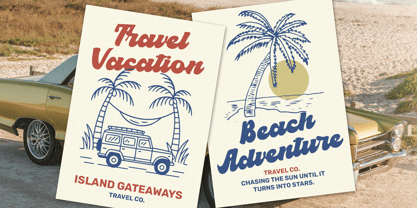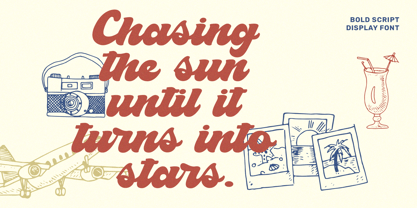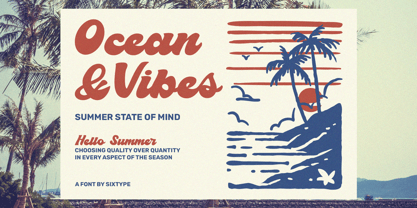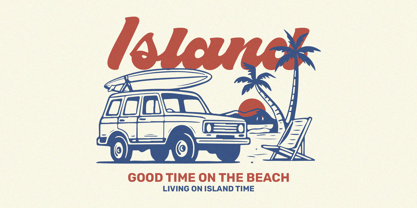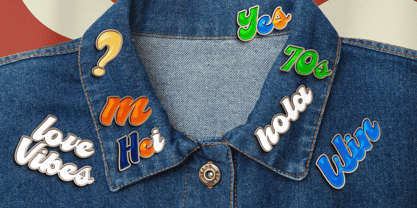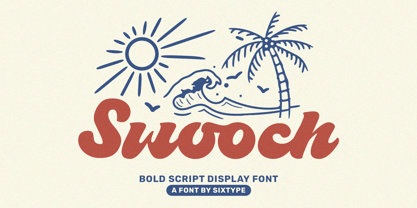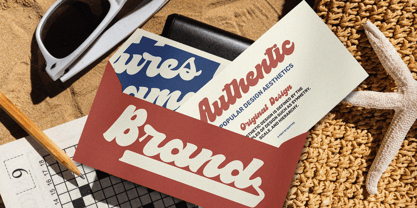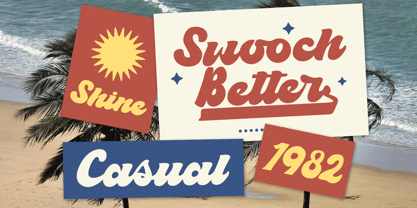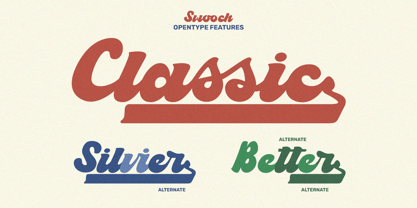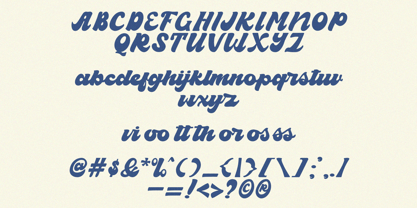
Swooch
by Sixtype Foundry
Swooch is a bold retro script typeface inspired by vintage signage, classic diner lettering, and nostalgic 70s typography. With its thick flowing strokes, smooth curves, and energetic swashes, this font exudes a playful yet confident personality that captures attention. The handcrafted script style adds warmth, rhythm, and vintage charm, making it ideal for a variety of applications including logos, packaging, apparel, café branding, posters, social media graphics, and retro-inspired merchandise. Swooch seamlessly combines expressive lettering with strong readability, offering designers a versatile display script that feels both timeless and lively, perfect for enhancing branding and creative projects.